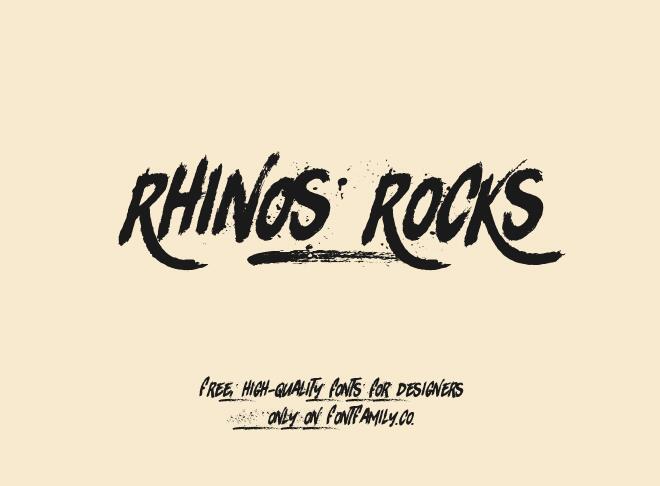
Rhinos Rocks Font
Rhinos Rocks Font is a bold, rustic, and decorative style font created by Font Foundry Co. The font features a unique blend of thick strokes and rough textures, making it ideal for display purposes. Its robust and gritty style can add a distinct character to any design, making it stand out. Compared to other fonts, Rhinos Rocks Font's uniqueness lies in its ability to capture attention and evoke a sense of strength and adventure. Best suited for logos, headlines, and posters, it can also be used in branding and packaging to create a rugged, outdoorsy vibe. The versatility of Rhinos Rocks Font makes it a great choice for designers looking to break away from conventional font styles and experiment with something new and refreshing.